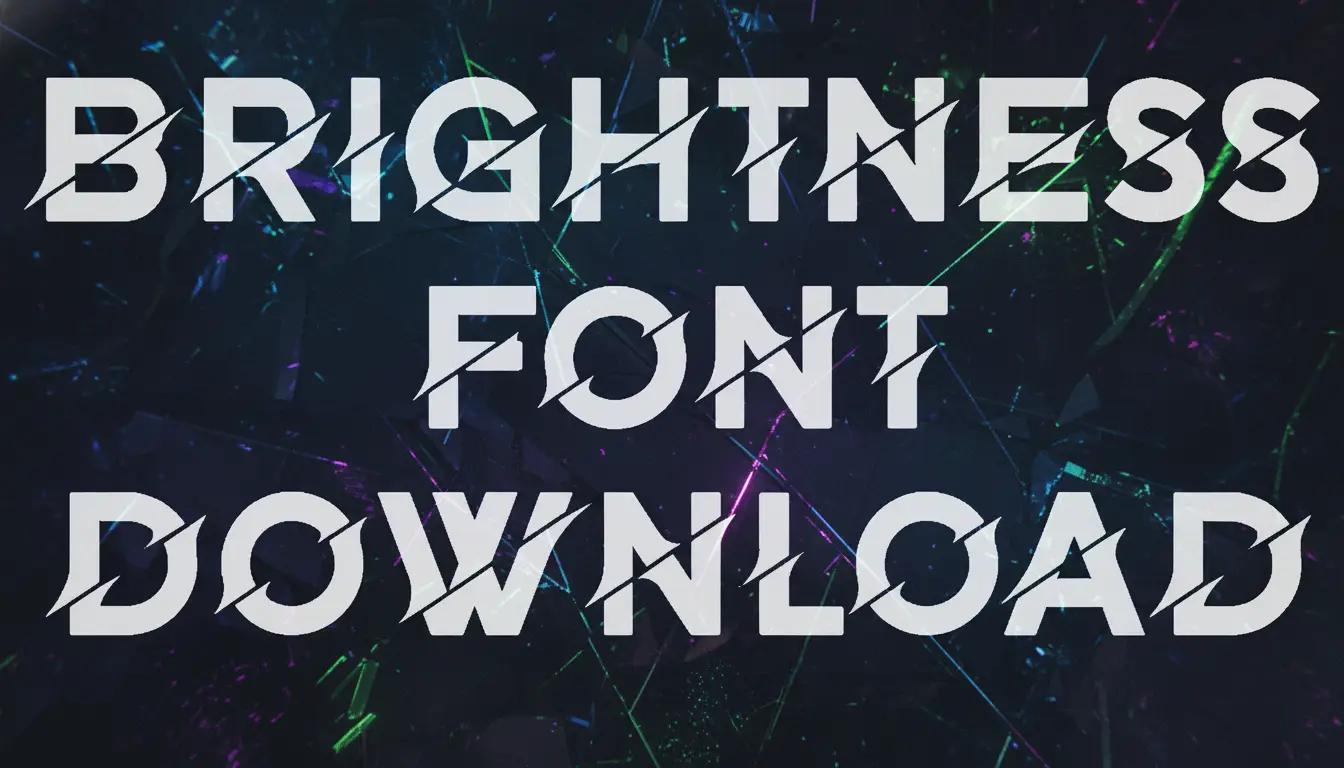
Brightness Font
Brightness
Brightness is a fancy font made by Vladimir Nikolic. It's a decorative display font with plenty of personality, made to grab attention. It's a free download, and you can try it with your own text in the preview above first.
What You Can Type With Brightness
With complete upper and lowercase letters and all ten digits, Brightness is ready for real wording, not just a single headline. Everyday marks like ! and ? are there too. There are no accented letters like é or ñ, so it's best kept to English text.
Where Brightness Works Best
Think of Brightness for posters, logos and eye-catching headlines. Use it for one standout word or headline and let simpler fonts handle the rest.
Does Brightness support accented letters?
No. Brightness has no accented letters such as é, ñ or ü, so it's best for English text.